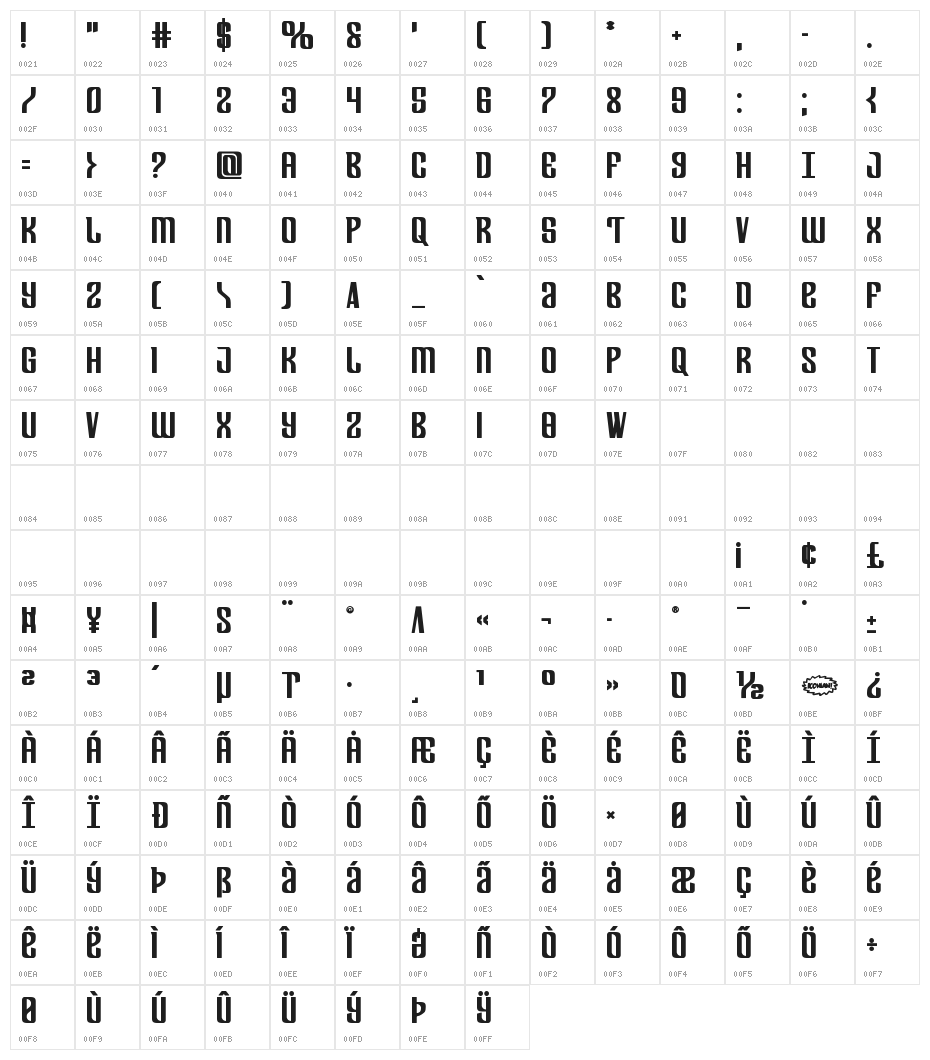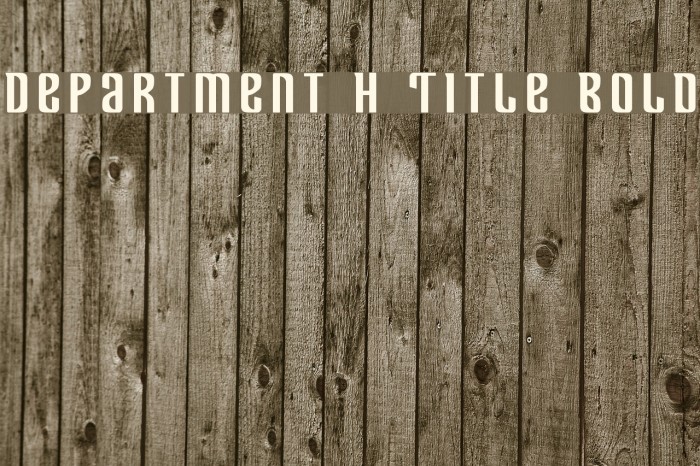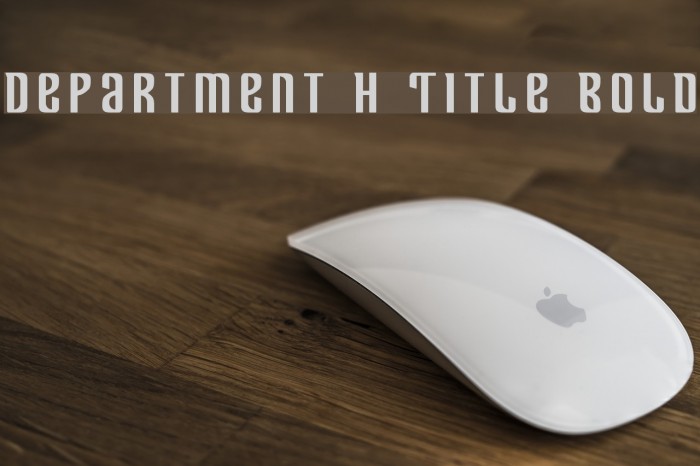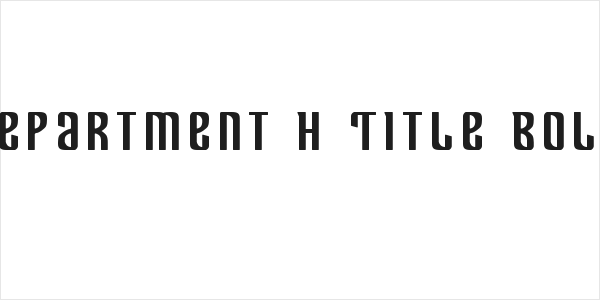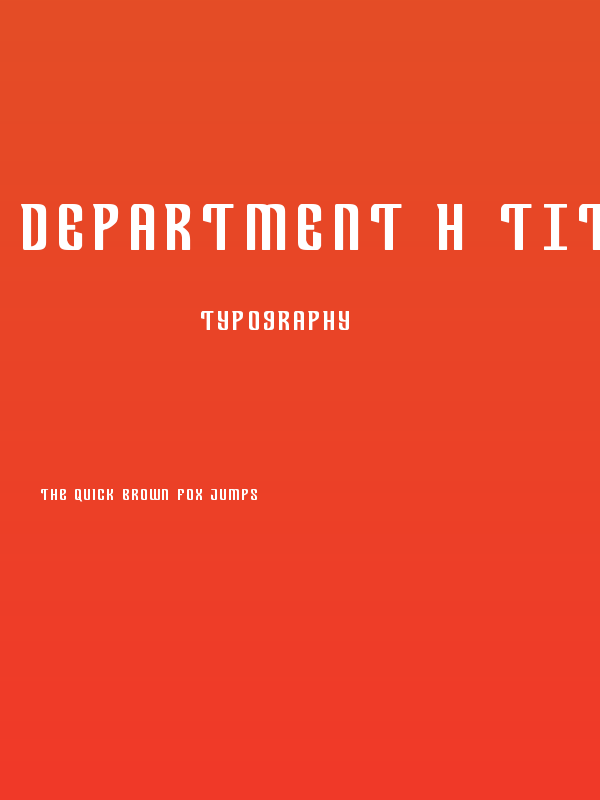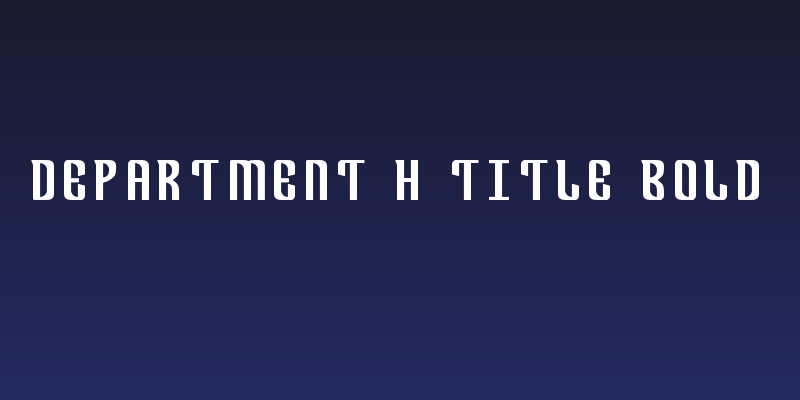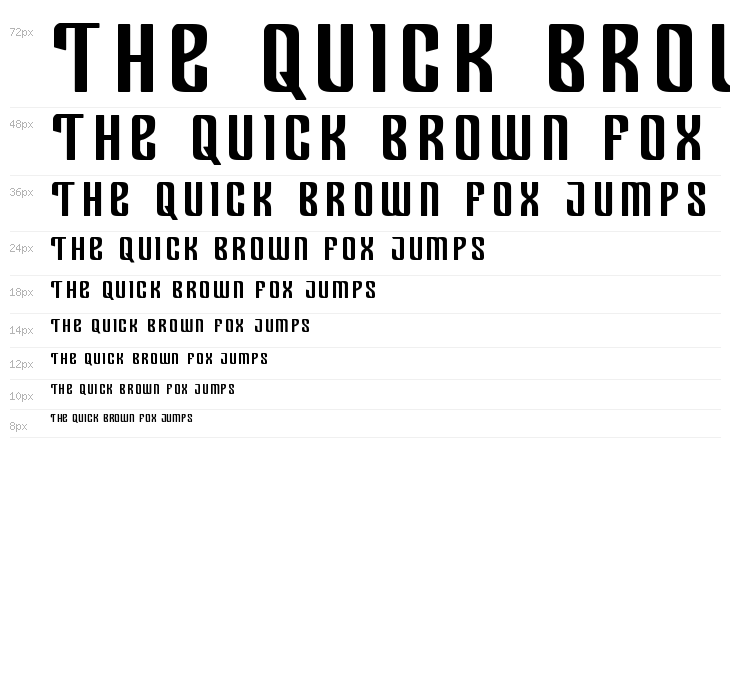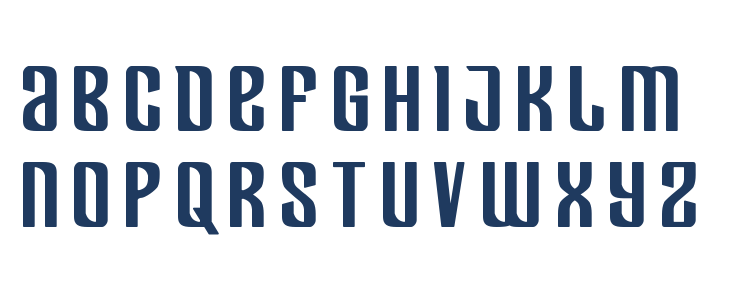
Department H Title Bold Font
Department H Title Bold Description
This font features a bold and striking design, characterized by its thick, block-like letters with a slight curvature at the terminals. The uppercase letters are uniform in height, creating a strong and cohesive appearance. The lowercase letters maintain the same boldness, with distinct shapes that ensure readability. The numerals are similarly bold, with a consistent width that matches the letters. Special characters are designed to complement the overall style, maintaining the same weight and structure. This font's boldness and unique character shapes make it ideal for attention-grabbing designs.